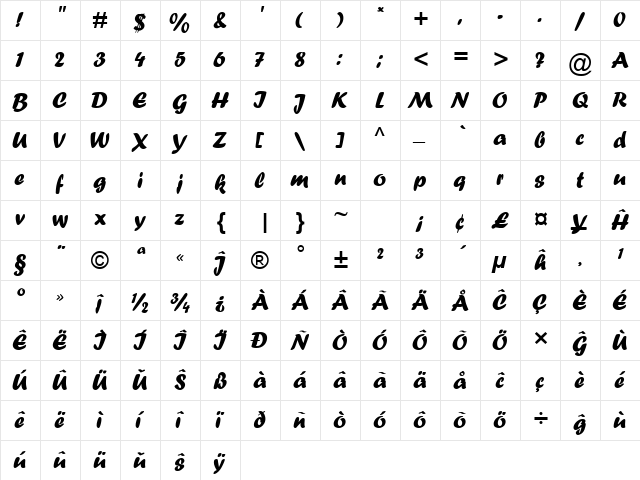
Forte Eo Regular
Design Context for Forte Eo Typeface
Forte Eo is a composed and adaptable typeface that performs quietly and consistently across a wide range of design contexts.